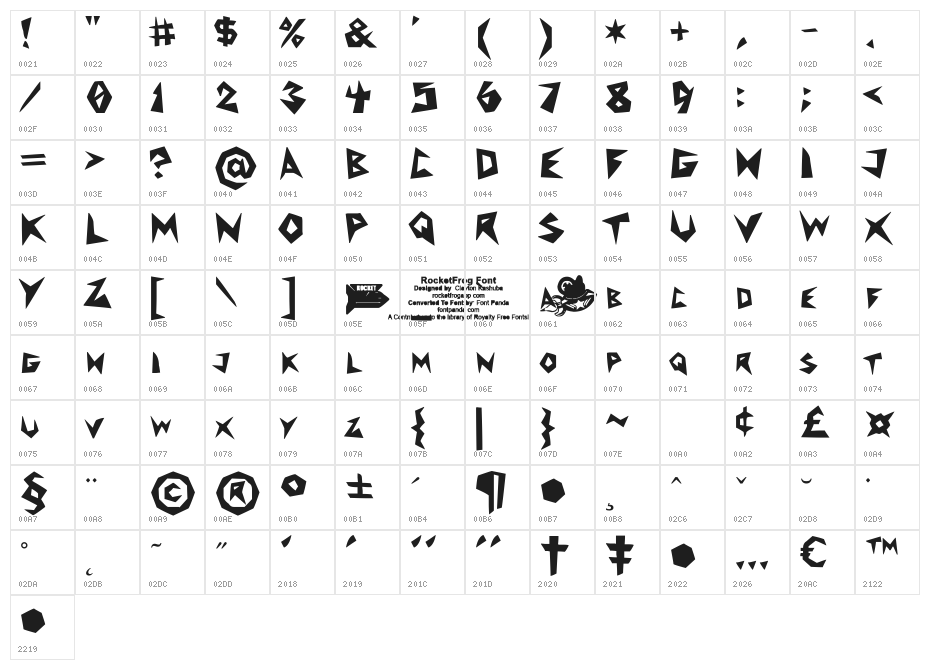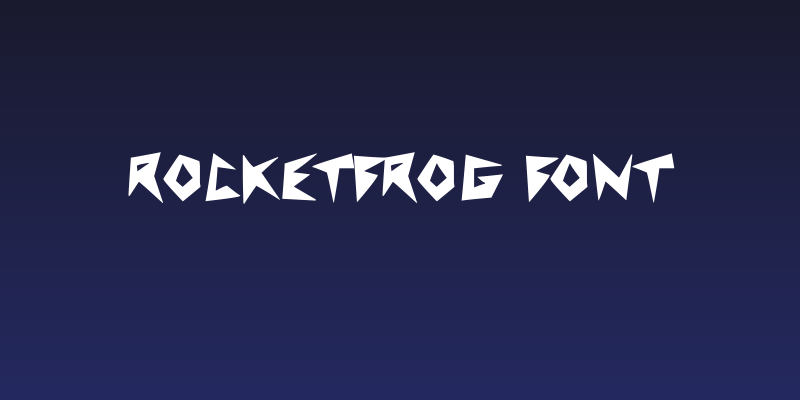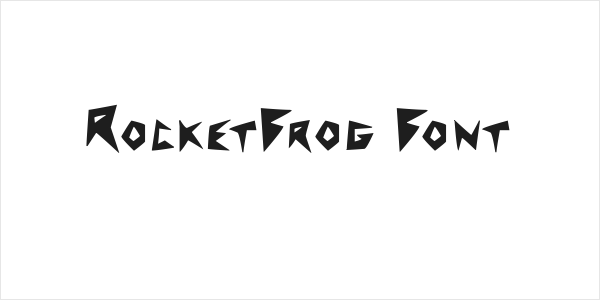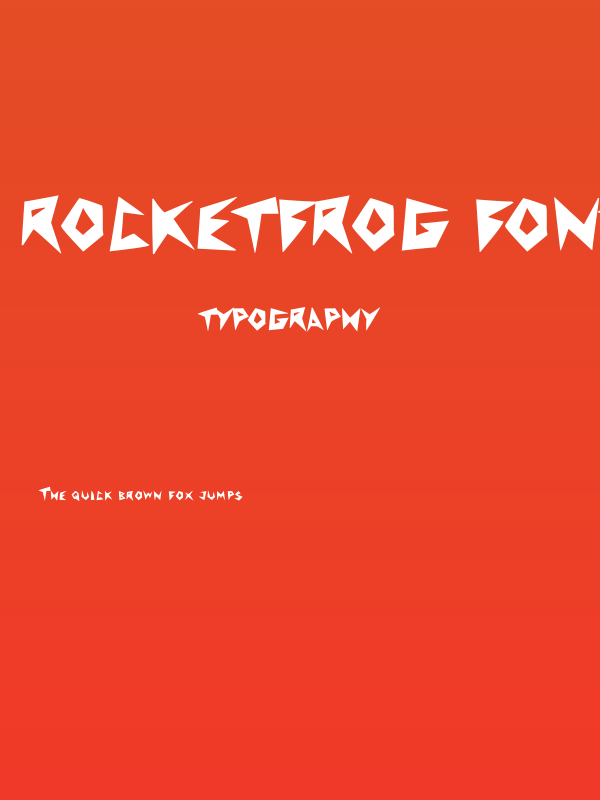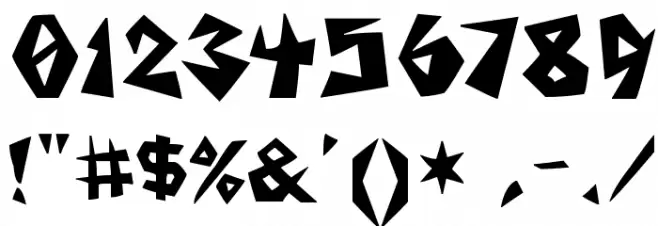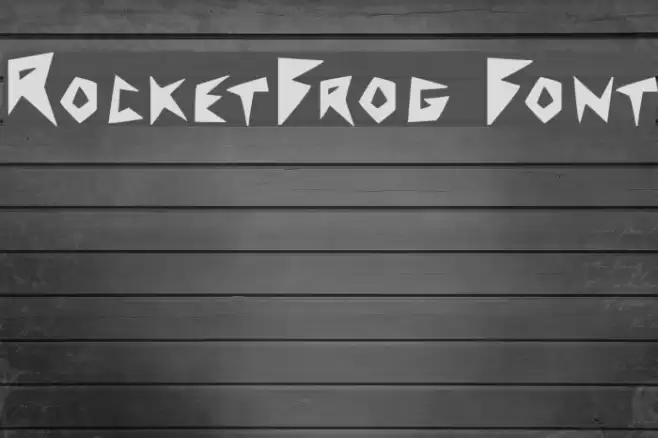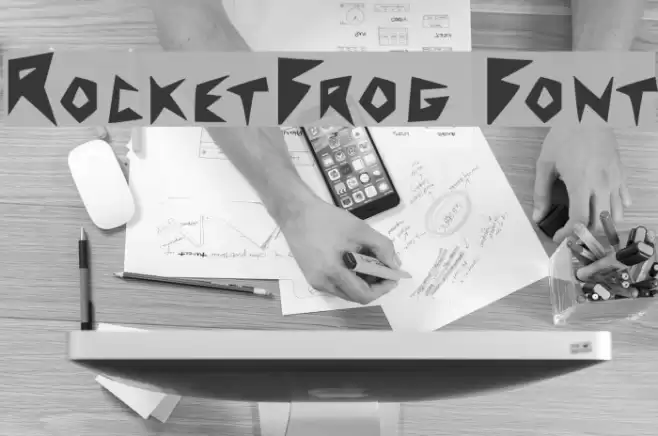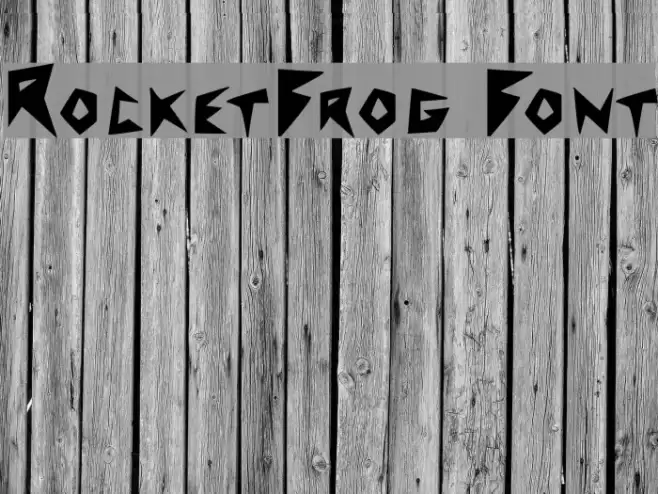
RocketFrog Font Font
RocketFrog Font Description
This font features a bold and dynamic design with sharp, angular edges that create a sense of movement and energy. The characters are highly stylized, with a geometric flair that makes them stand out. The uppercase and lowercase letters maintain a consistent angular theme, while the numbers and special characters follow suit with the same edgy aesthetic. This font is perfect for projects that require a modern and unconventional look, capturing attention with its unique style.
| Proposed Projects | Ideal for music album covers, video game titles, posters, and branding that seeks a modern, edgy appeal. |